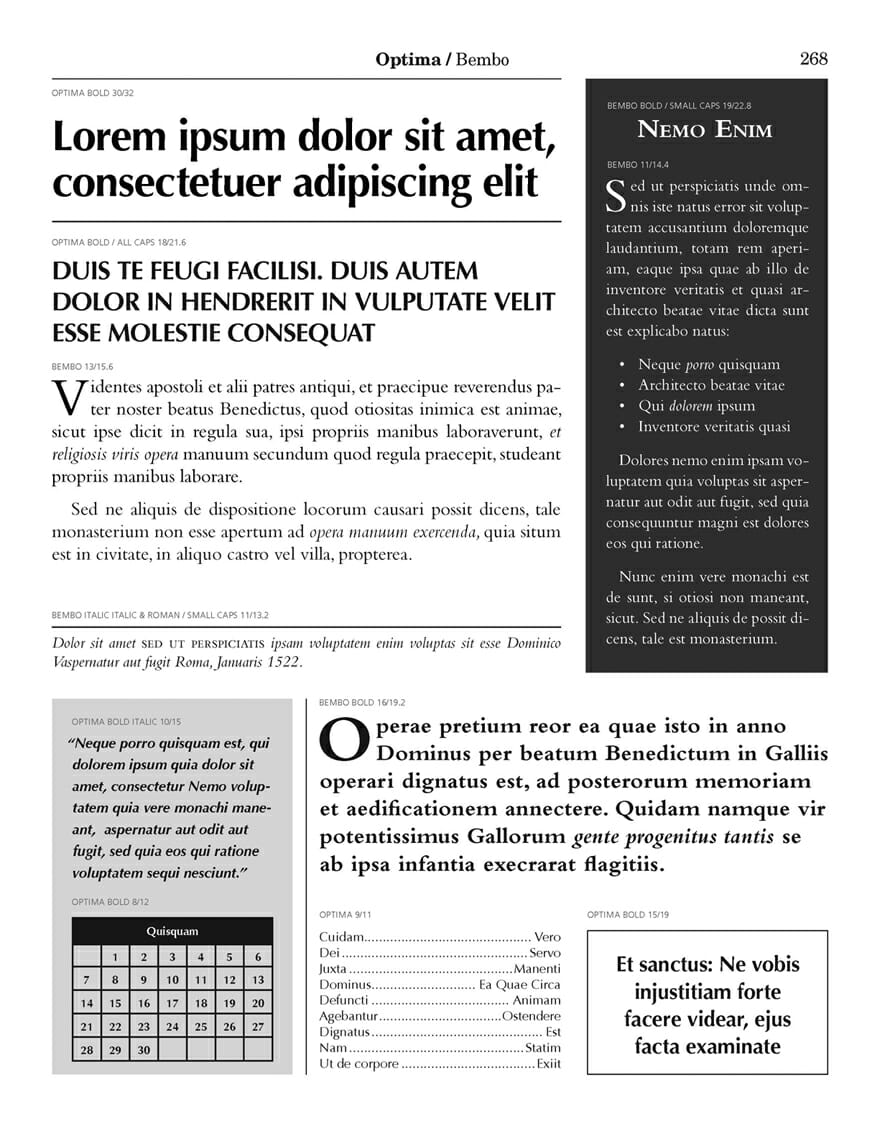
I wrote an article about six months ago about three typeface combinations I really liked. It was in the comments to that post that I met Douglas Bonneville, a designer and typographer who is the proprietor of the BonFX Graphic Design studio near Providence, Rhode Island.
It turned out that Douglas had been exploring the 19 most popular fonts in history, and how they combine with each other. He blogged repeatedly about the typefaces he had identified and showed how they could be combined with each other.
This is a question that comes up often with people trying to design and produce their own books. “What font should I use,” is one of the top 3 most popular questions I get from self-publishers. It’s not always easy to answer this question, and one of the reasons is that most books use two main fonts: one for the text and one for “display”—chapter openings, subheads and similar elements.
You might like Garamond, but the next logical question is, “What font goes with Garamond”? There was no easy way to answer this question. There are a few combinations that seem natural, for instance typefaces from the same designer which show similarities that might lend themselves to being used together, but that’s no rule.
So I was pretty excited to see Douglas’ work, and even more so when he brought together the work he had done and published it as an iPhone app, Font Combinations
Font Combos for the iPhone
It’s fun (if you’re interested in typefaces) and you can hone in on combinations that you particularly like. Here in the screenshot you can see one of my favorite combinations, mentioned in my blog post. It pairs Myriad Bold with Caslon.
Much as I liked Douglas’ iPhone app, I knew he was working on a much more ambitious version of this presentation.
The Big Book of Font Combinations
Now Douglas has pulled together all his research and his prodigious typographic design skills to create a real resource for typographers and anyone who has to work with type.
But Douglas has gone farther than just putting two typefaces together. He’s created a really useful page of samples for each combo, including showing you how the typefaces look:
- In regular, bold, italic and bold italic fonts
- With initial drop caps in both regular and bold variations
- Reversed as white against a black background
- Overprinted on a light tint
- In two different forms of tabular composition
- Centered in a ruled box
This makes for a page that is crammed with information, but in a good way. The book acts both as a type specimen book for these wonderful typefaces, but also as a fascinating resources about how they complement or contrast with each other.
In the sample page above you can see a combination of Optima and Bembo, two typefaces I would never have thought to combine, yet they have an odd harmony. It’s discoveries like this that are the best thing about the Big Book of Font Combinations. Seeing even familiar typefaces in a new way through combinations and the subtle effects one type design exerts on another when close by.
Bonneville includes some useful explanations of how his project took shape, and shares his delightful 29 principles for making great type combinations which includes:
7. Find some kind of relationship between the basic shapes. For instance, look to the letter O in upper and lower case. Round letter O’s and taller oval O’s, in general don’t seem to like each other when creating pairs.
And also:
17. Study and learn the classic typefaces on their own. Print them out and stare at them at lunch. Once you know them pretty well, then think about how they work with other typefaces. You’ll know much more going in to solve your design problem.
Who Is it For?
It might be hard to justify buying this book if you think you will only ever create one book of your own. But fonts are all around us. Many people have never ventured past the Times New Roman and Arial on the font menu of their word processor, and this book might inspire them to present their work in a new way.
And there are new tools spreading on the web and yet to come that will bring much better control of typography to many online experiences. The Big Book of Font Combinations might prove to be a useful resource down the road.
And for designers, typographers or anyone who works with setting text in type, the book is a treasure trove of inspiration and a great addition to your type library.